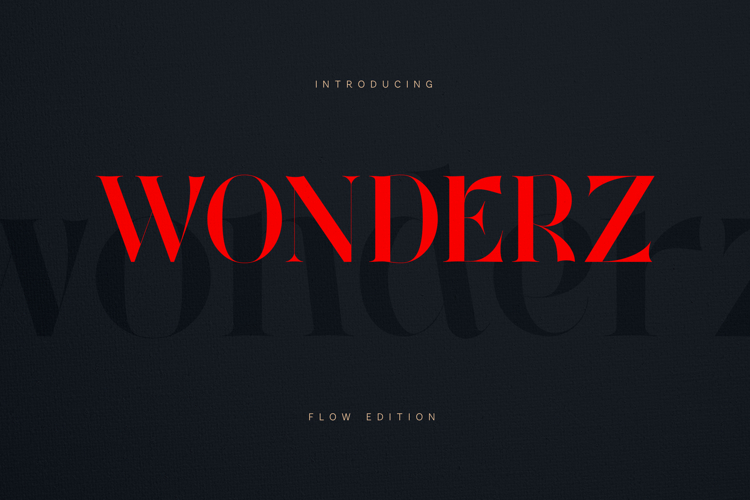
Wonderz Elegant Modern Serif Typeface
Wonderz is a sophisticated modern serif typeface designed with expressive contrast, sculpted curves, and graceful transitions.
The typeface blends luxury editorial aesthetics with contemporary elegance, creating a distinctive voice for modern typography. Its flowing letterforms and refined serifs give text a stylish rhythm that feels both timeless and progressive.
Wonderz works beautifully in large display settings where the elegant details and contrast can truly shine. The design balances bold presence with delicate curves, making it ideal for premium branding, fashion editorials, and luxury packaging.
With multilingual support and a carefully crafted character set, Wonderz provides flexibility for designers working on international projects while maintaining a refined typographic identity.
Perfect For• Fashion magazines
• Luxury branding
• Editorial layouts
• Beauty and cosmetics packaging
• High-end logos
• Wedding design
• Social media typography
• Premium product branding
Features• Uppercase & lowercase letters
• Numbers & punctuation
• Extensive multilingual support
• Elegant high-contrast serif design
• Modern editorial style